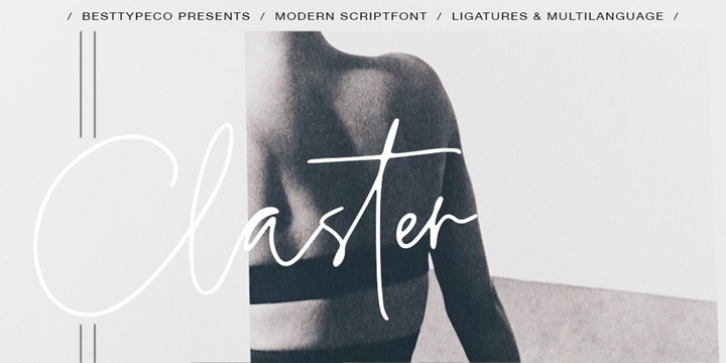
Claster - a new fresh handmade calligraphy font. Very suitable for greeting cards, branding materials, business cards, quotes, posters, and more!This font are perfect for wedding postcard. Or you can create perfect and unique design of your logo, blog, stationery, marketing, magazines and more :)
Features :
- UpperCase & Lowercase - Numerals & Punctuations - Multilingual characters (AÀÁÂÃÄÅCÇDÐEÈÉÊËIÌÍÎÏNÑOØÒÓÔÕÖUÙÜÚÛWYÝŸŸ ÆŒßÞàáâãäåæçèéêëìíîïðñòóôõöøùúûüýÿ) - 86 ligatures